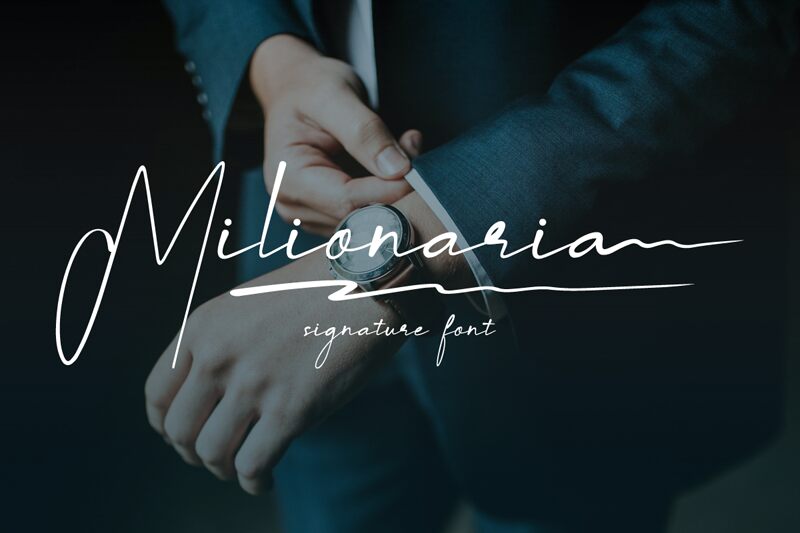
Milionaria
Milionaria, a captivating handwritten font created by 3w protype, evokes a sense of elegance and sophistication. This light, signature-style typeface boasts flowing curves and a graceful, organic feel, lending an air of effortless charm to any design. The Milionaria font's distinctive flourishes and natural, expressive strokes captivate the eye, making it a true standout in the world of typography.
The Milionaria font's versatility shines through, making it a versatile choice for a wide range of design applications. From luxury branding and high-end packaging to editorial layouts and wedding stationery, this font's timeless allure can elevate any project with its refined, yet approachable aesthetic. Whether you're seeking to convey a sense of exclusivity, craftsmanship, or personal touch, the Milionaria font is sure to leave a lasting impression.